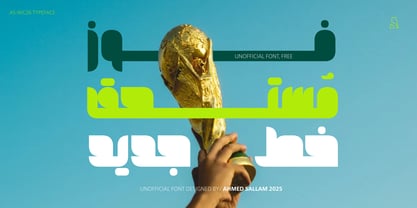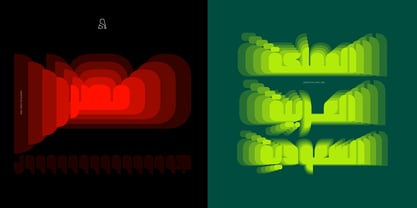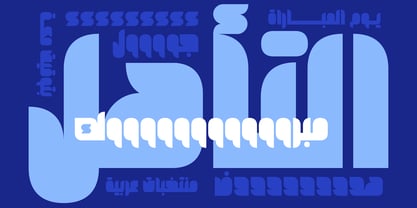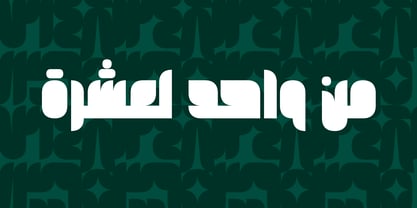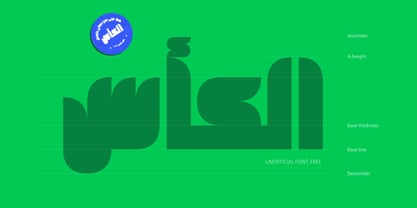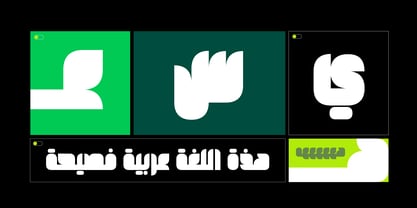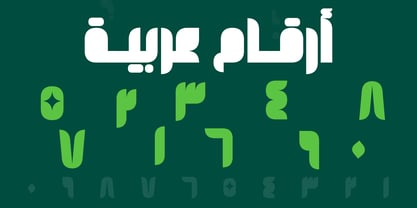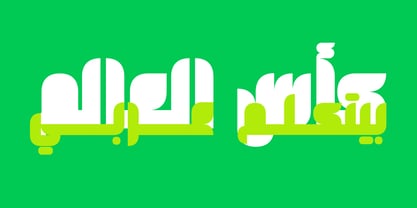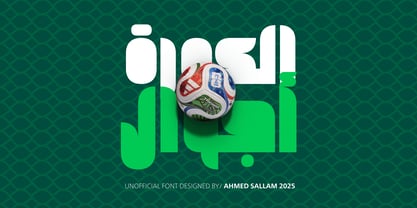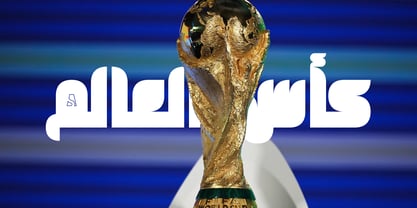
As WCA26
by Sallam Type
The As WCA26 Font Family was designed by Ahmed Sallam and published by Sallam Type. As WCA26 contains 2 styles and family package options. More about this family
It's a professional font designed by the creative AHMED SALLAM, specifically designed to celebrate the 26th World Cup. Inspired by the new identity, it expresses the angles, curves, and spirit of the new logo. The font is not official and has no direct connection to the World Cup as a brand, but it is a font for football fans worldwide, featuring Arabic letters and the Arabic language.